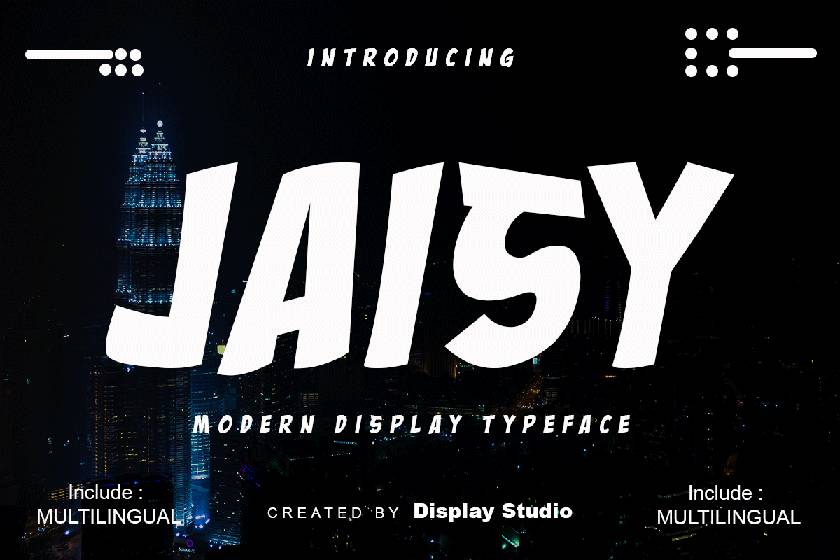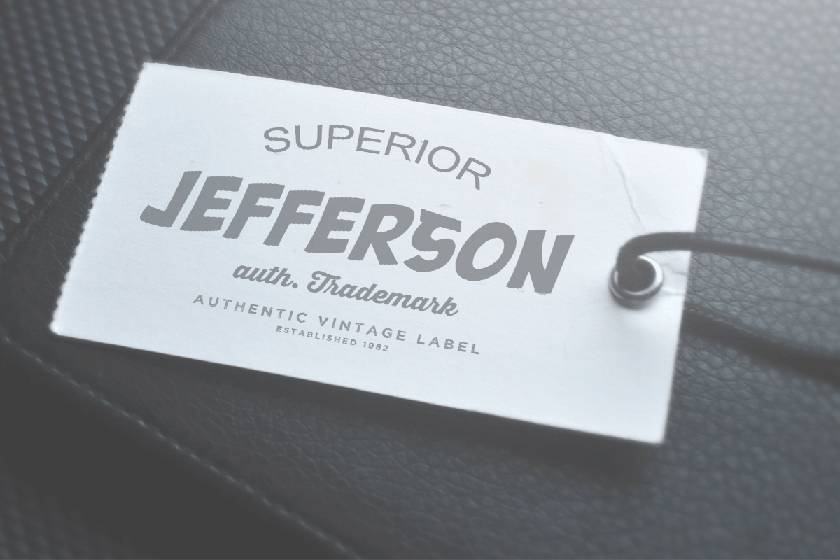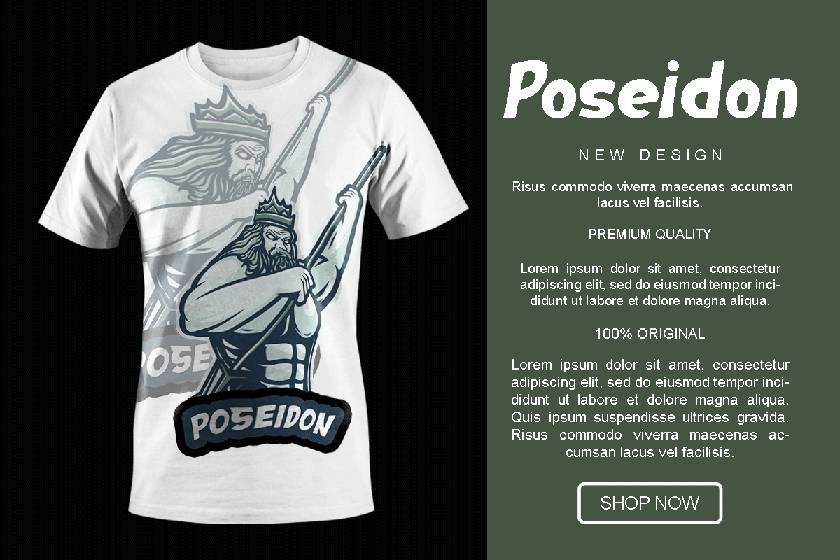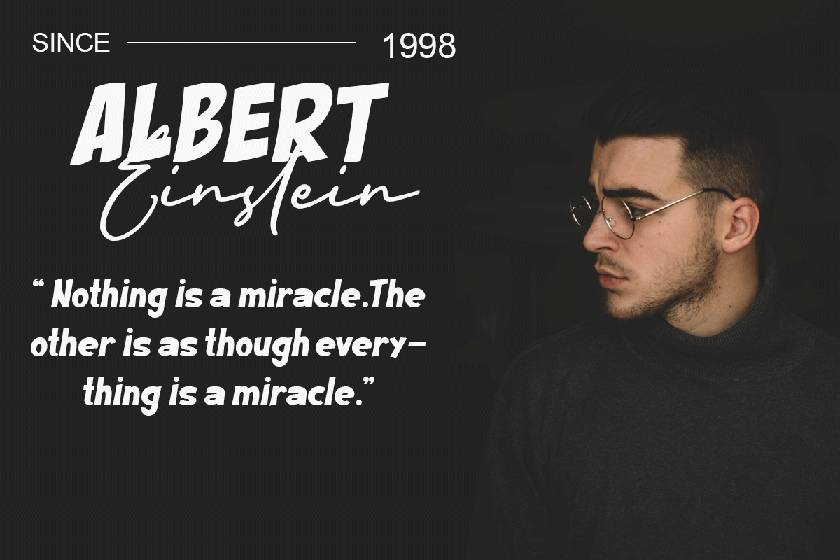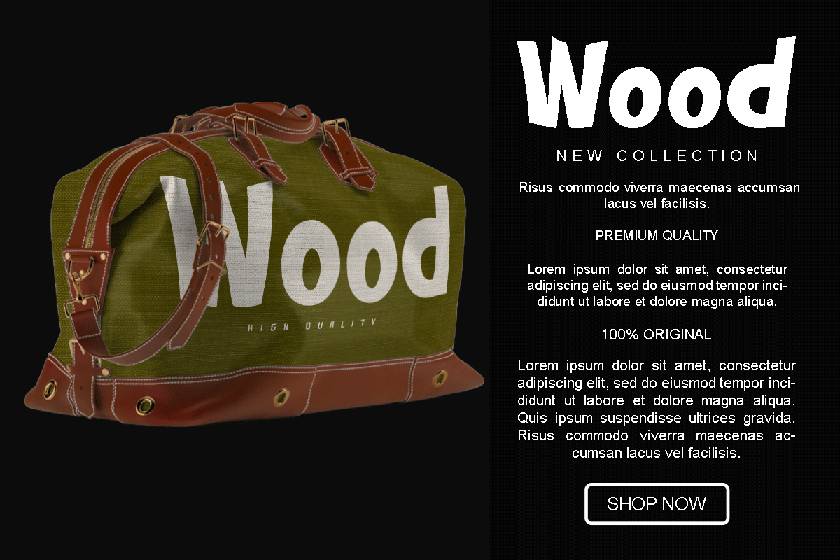
Jaisy is a bold, condensed sans serif font with a playful and dynamic feel, characterized by its slightly slanted letterforms and strong geometric shapes. Its lively personality makes it ideal for headlines, posters, and branding projects that seek a youthful, energetic vibe. This font works well in creative and informal contexts where attention-grabbing impact is key.
Jaisy Font
About Jaisy Font
| Font family | Jaisy Font |